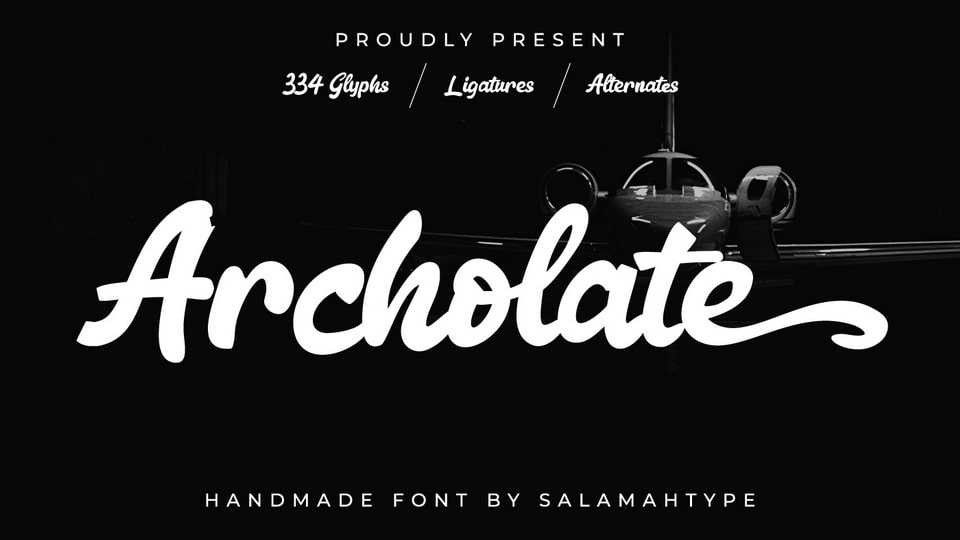
Download Archolate font, a natural handmade typeface, comes with classic script style more unique with alternates, perfect for anyone who likes vintage style.